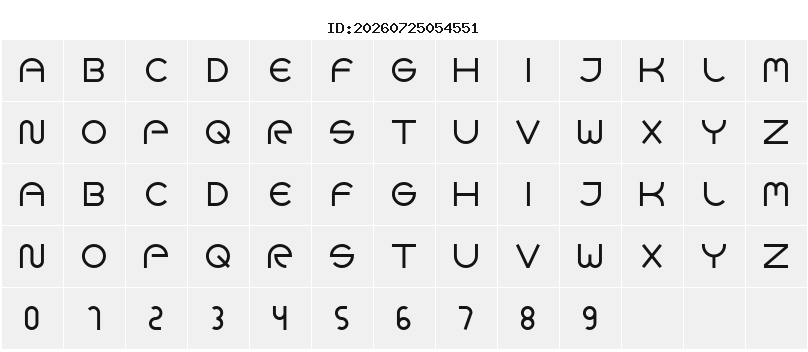
• Font Name: Goca logotype beta
• Designer: Jonas Borneland Hansen
• Description: The Goca logotype beta is a font designed to be used in a logo. But you are very welcome to use it the way you would like to ;) _____________________________________________________ Goca logotype beta is a trademark of Jonas Borneland Hansen. Copyright (c) 2008 by Jonas Borneland Hansen. All rights reserved. For any questions contact me at say@heydafo.com
Goca logotype beta.ttf is a modern, elegant sans-serif font designed for ultimate readability and visual harmony. Perfect for branding, headlines, web design, and print materials.